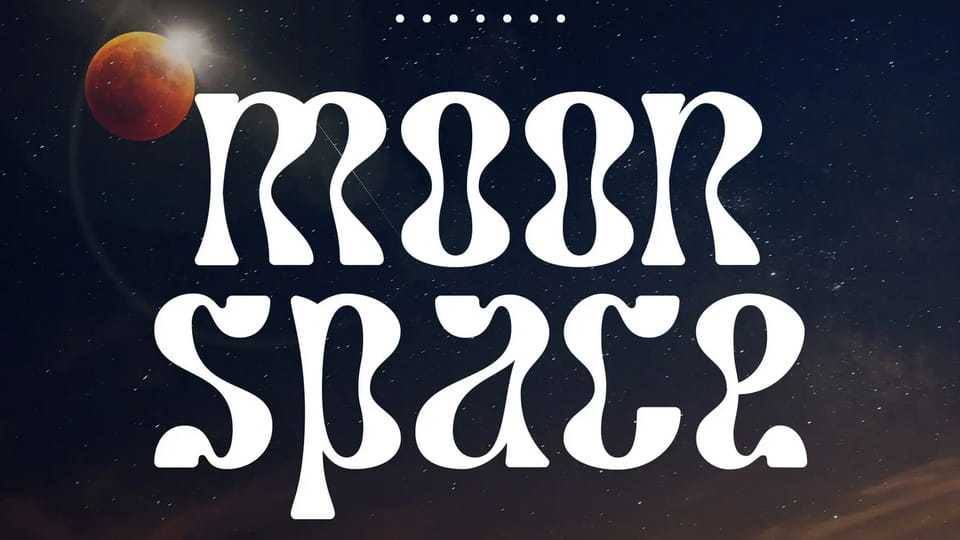
Download Moonspace font, a unique display sans-serif typeface with a captivating wave-like character on each letter. Despite its slightly taller height, this font remains highly legible and suitable for a wide range of designs.